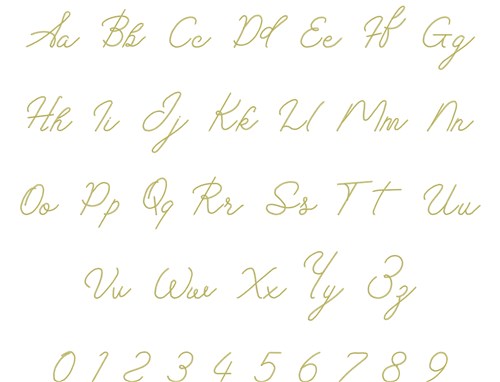
Satin Stripes is happy to present Cedar Curve Embrilliance Embroidery Font - Flowing Cursive Lettering - BX font machine embroidery font which has This cursive machine embroidery font is ideal for monogramming on linens and soft goods. The flowing characters are great for adding a personal touch to projects. Available in Embrilliance formats. included. If you would like to view more embroidery fonts and alphabets please search our embroidery fonts page.
Cedar Curve Embrilliance Embroidery Font - Flowing Cursive Lettering - BX font